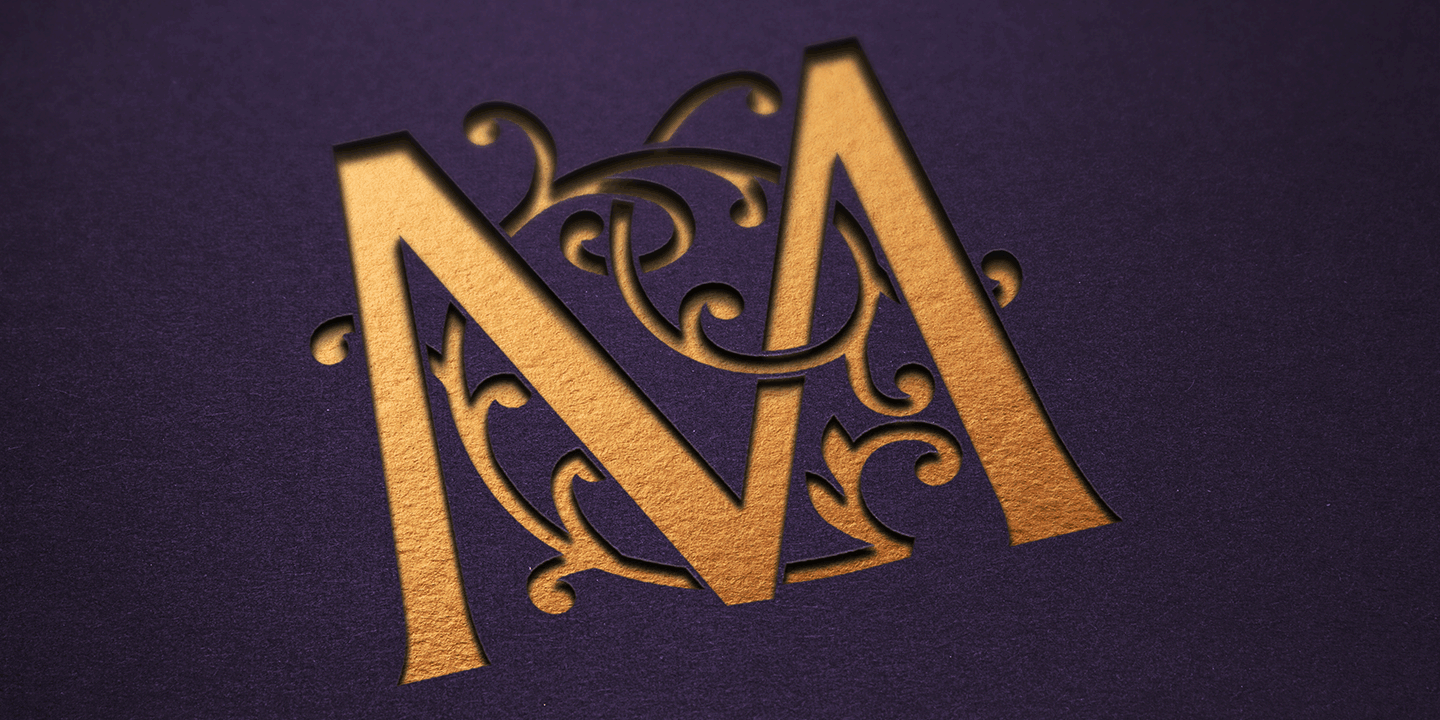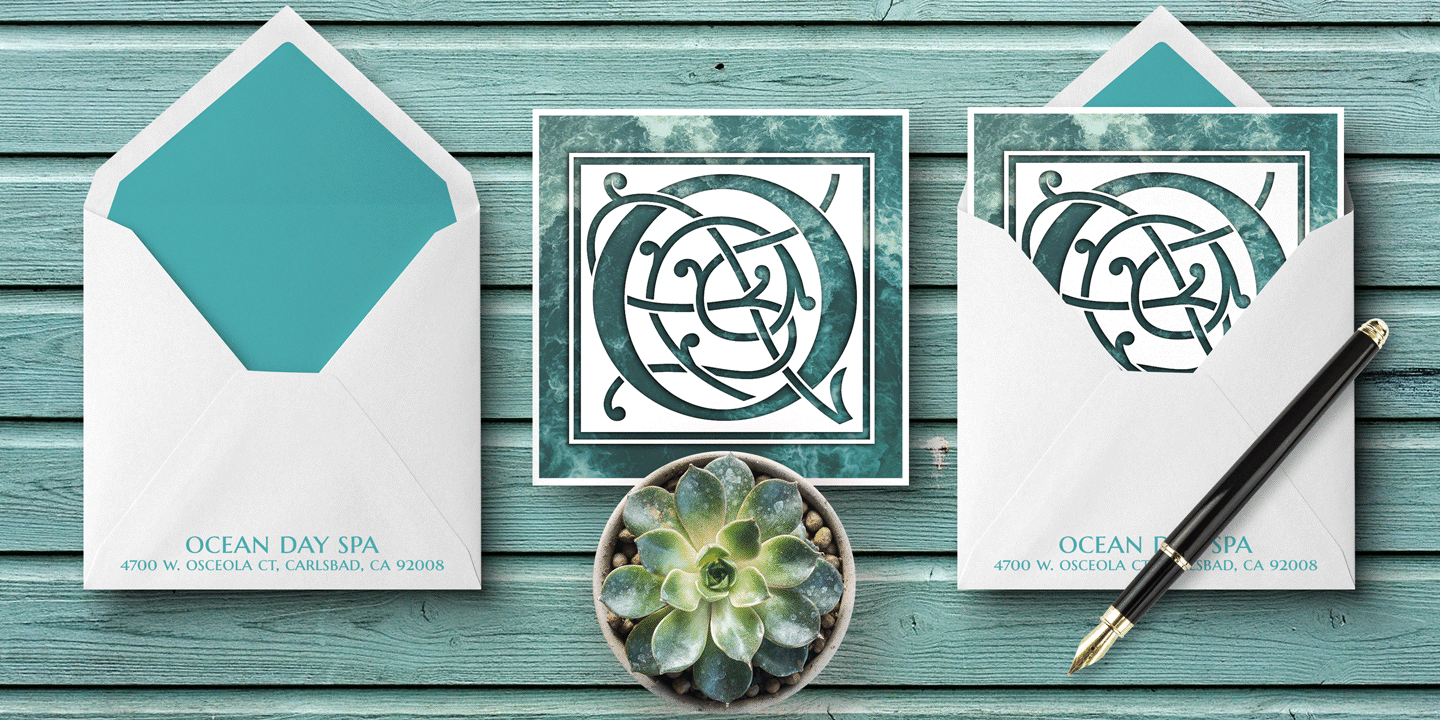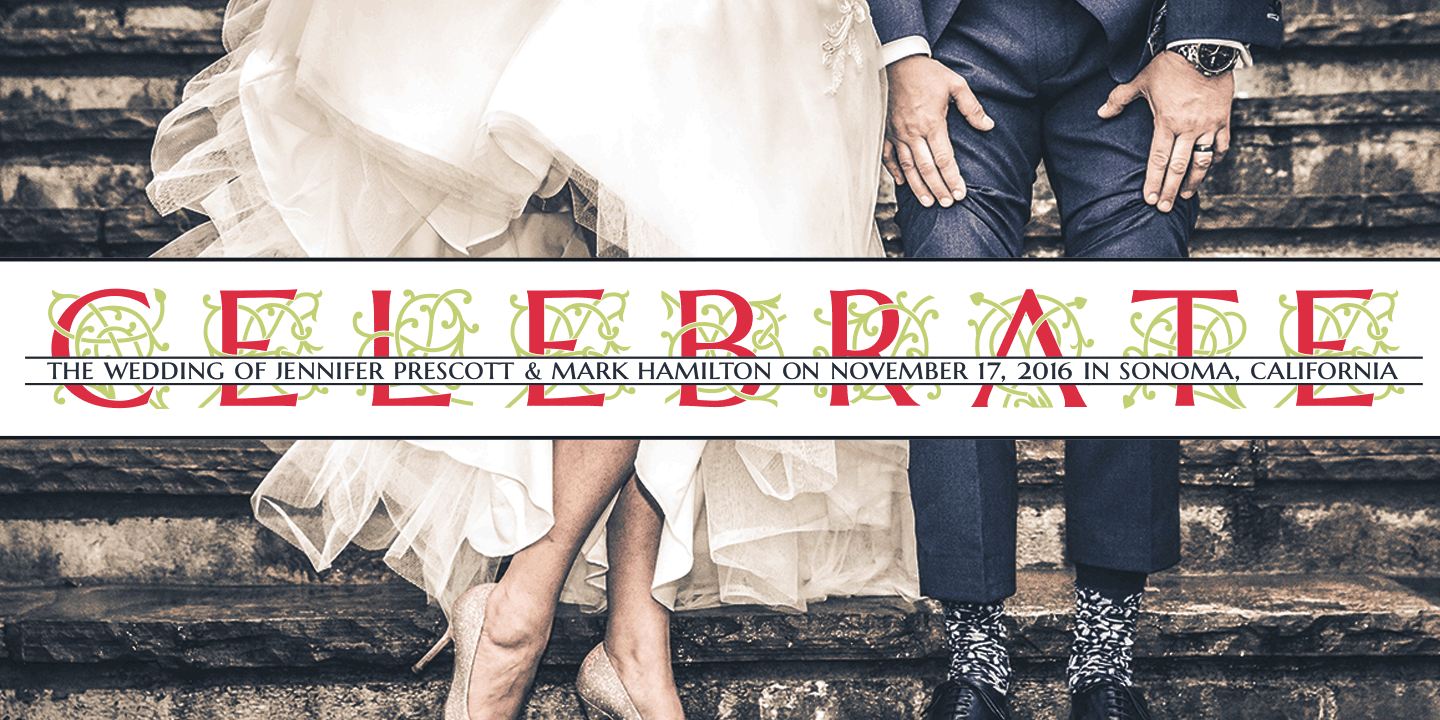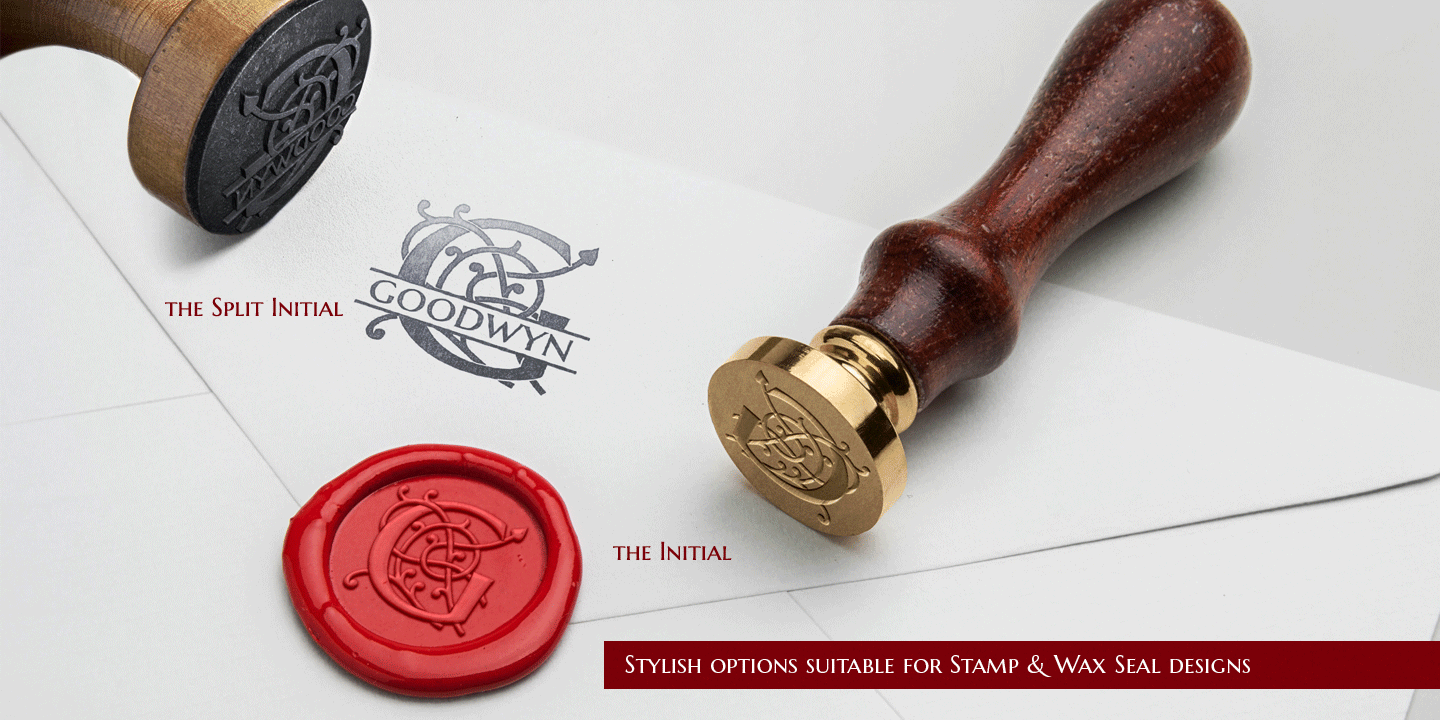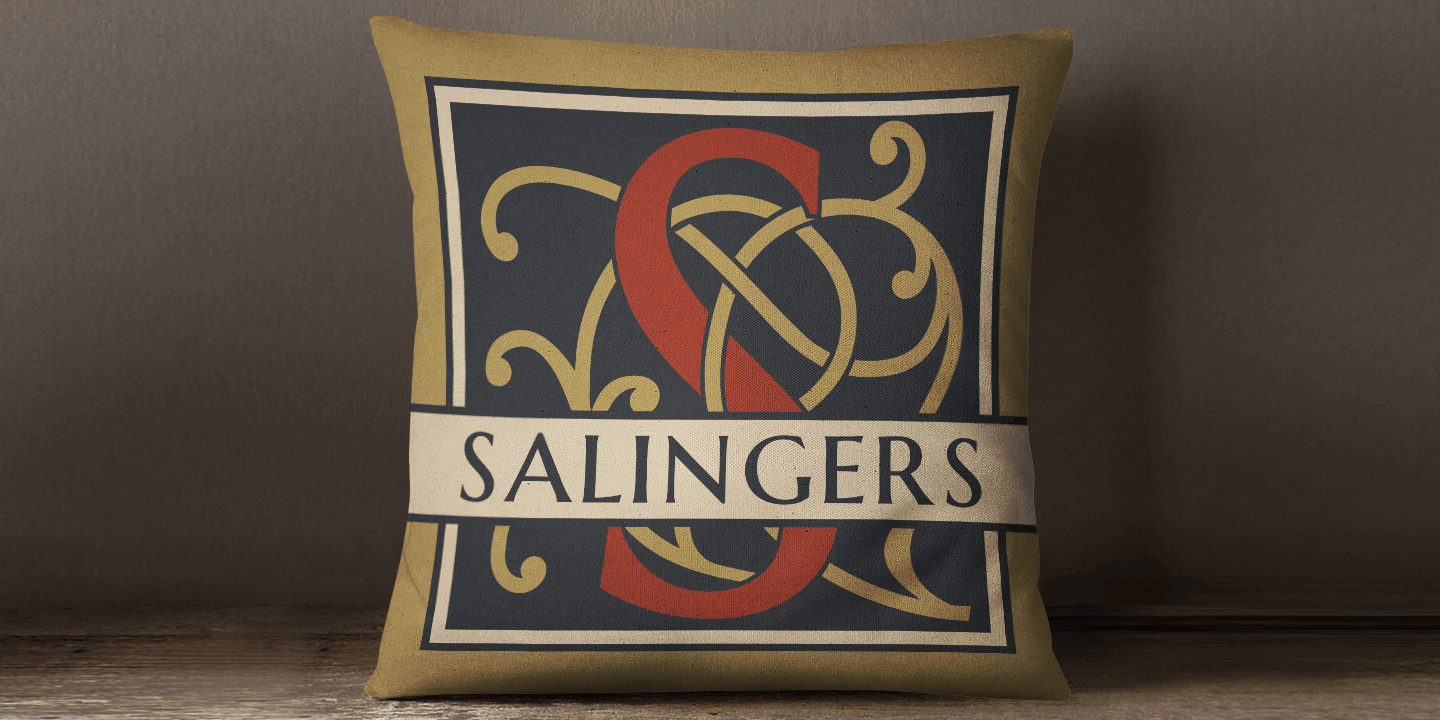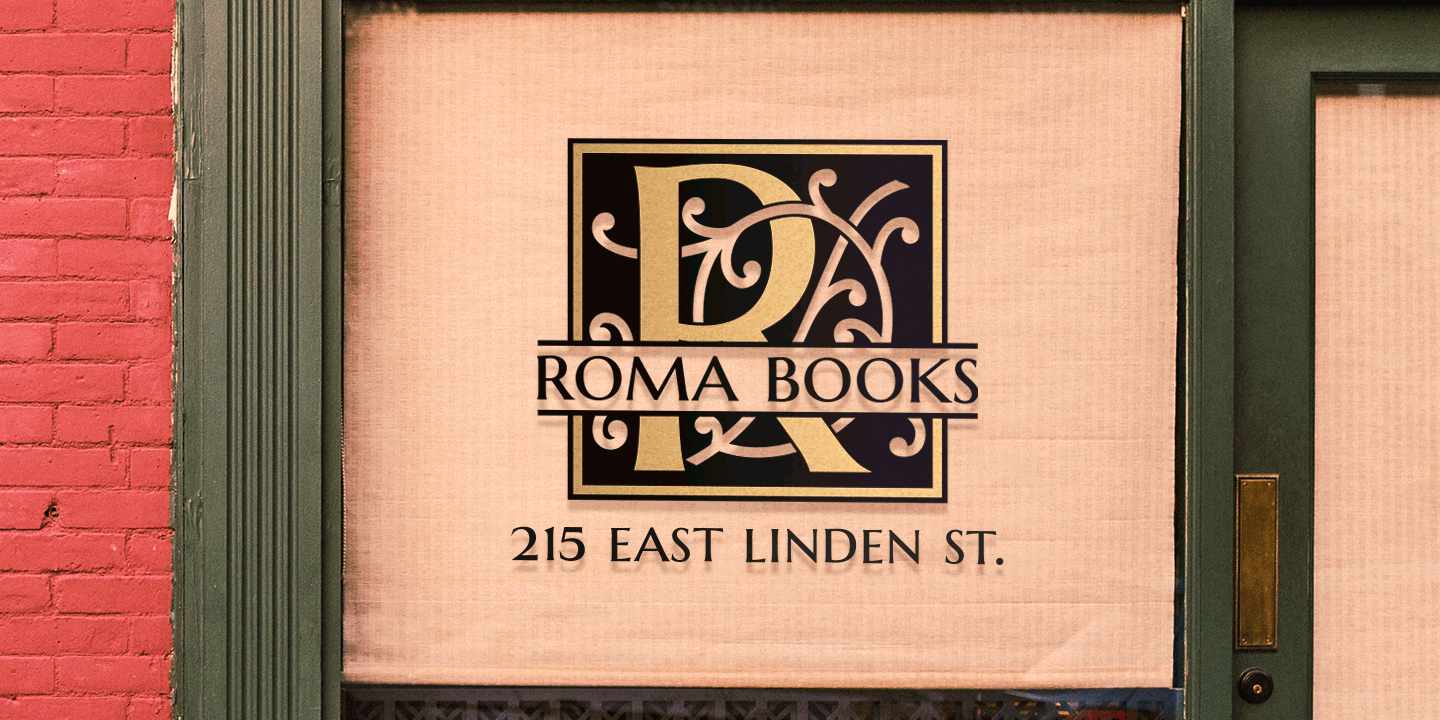
Mercer
Font Family by Monogram Fonts Co
The source of inspiration for MFC Mercer is an initials set from the book ?Monograms and Alphabets for Combination? by Dollfus, Mieg & Cie, first published in the 1880's. We've taken the original Cameo styled initials that had a somewhat clumsy weighting and rebuilt the design using the capitals from Marcellus Pro by our sister foundry, Stiggy & Sands. We've extended the family by including both a Cameo and Non-Cameo version of the Initials, as well as Chromatic versions that can be layered to colorize the designs.
But we couldn't leave it as just an initial typestyle, so we took it a another step, and created Split Monogram Initials with bar splits & extensions for personalization, with the same chromatic set of layers as the full initials version.
MFC Mercer has loads of different ways in which to layer the different fonts in this collection to create unique custom designs. Download and view the MFC Mercer Guidebooks if you would like to learn a little more. Never before has an initial or split monogram typeface come complete with so many options!